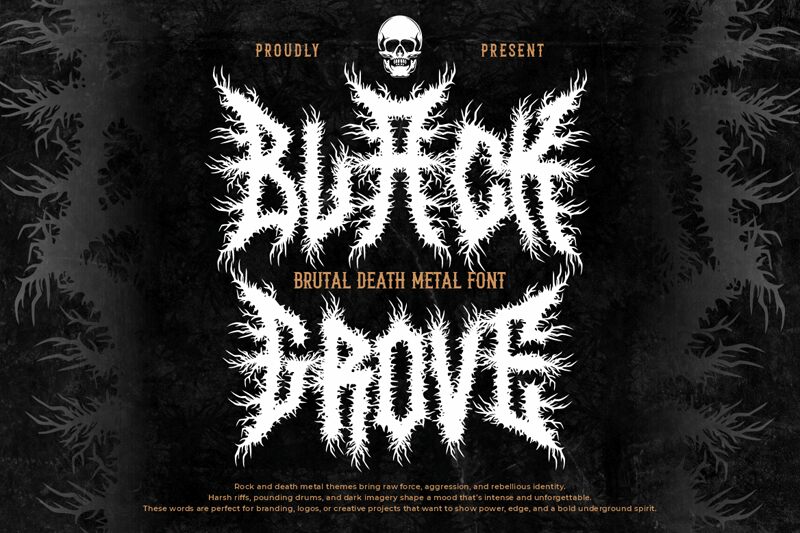
Black Grove font family designed by PutraCetol Studio comprises 2 distinctive font styles with a particularly gothic concept. Furthermore, this free font family manages to showcase a flow in its designs with each character, sharing noticeable details and brutally raw energy. Grunge and slightly chaotic, they hold a certain intensity to them that, when combined, can only lead to remarkable designs. These letters are also paired with a set of symbols and numbers for impressive projects.
To truly capture the rebellious nature of the style, don’t wait too long and start by using the Black Grove font for your band posters and CDs, album titles, festival tickets, etc. The sharp turns and jagged cuts of the characters can also be used in PowerPoint presentations on gothic architectural style and more generally in branding and packaging designs for prolific projects that introduce a new visual identity. You can even edit the texts with a unique color selection of shadows, making them suitable for night club signs, clothing shops for metal fans, etc.